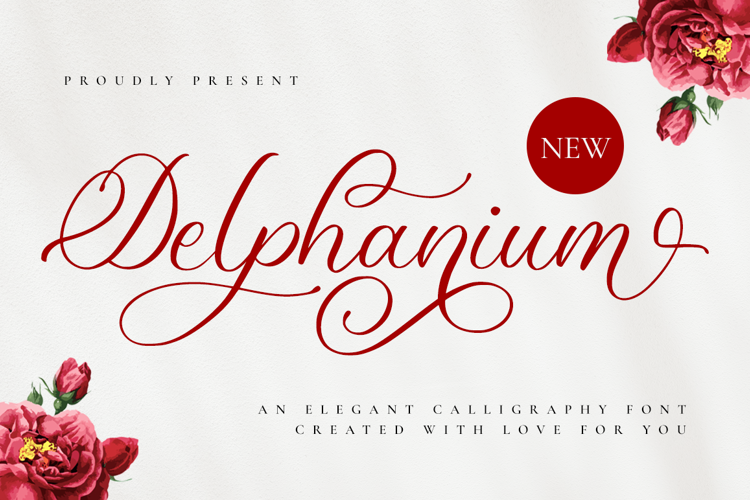
Delphanium Font
Delphanium is a beautiful light handwritten font with a unique feel and a stunning impact. It will add a luxury spark to any design project that you wish to create! This font was particularly crafted for those who need a beautiful and refreshing look to their designs.